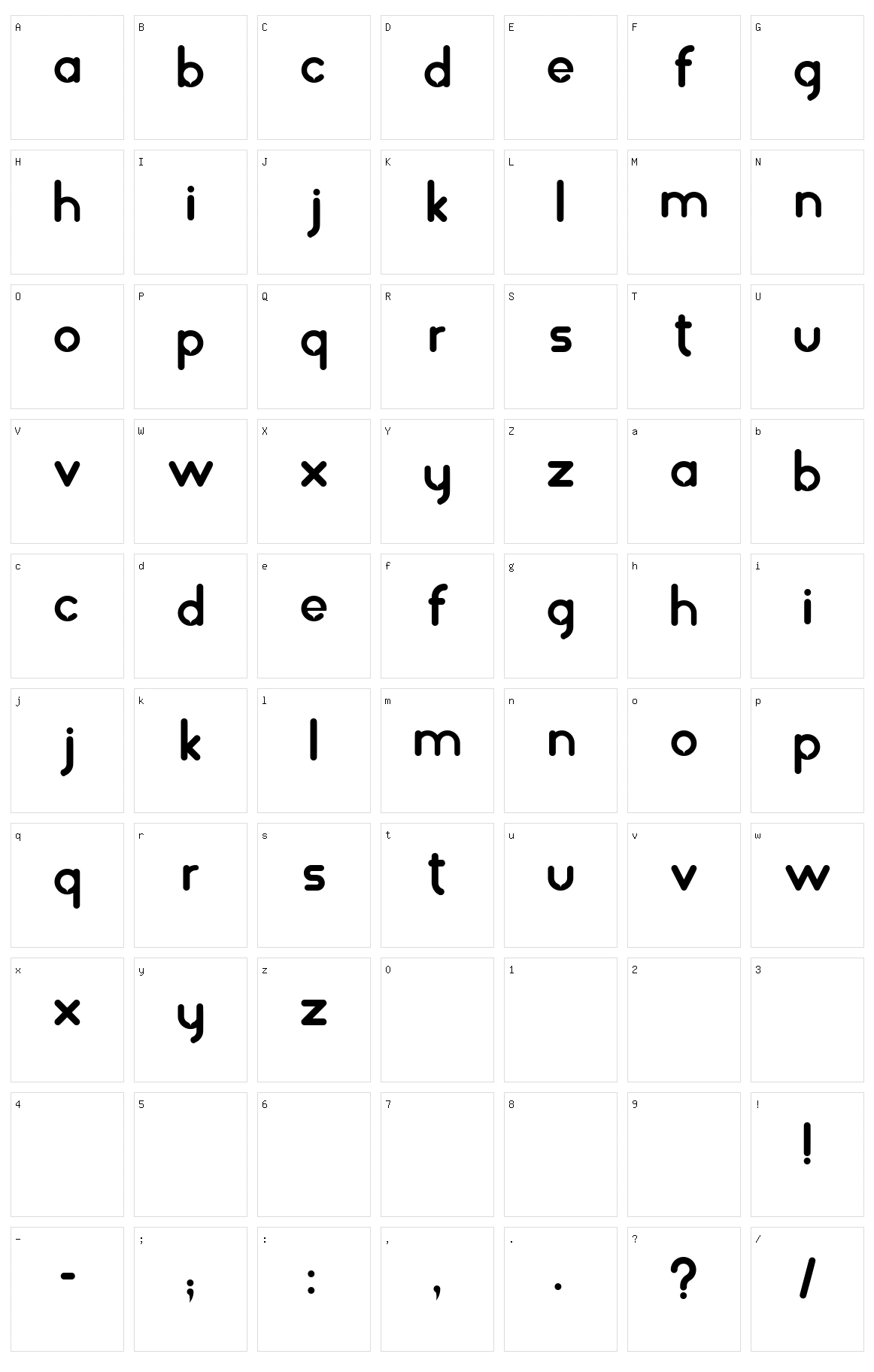
The free font Balonez Fantasia is carefully designed by Thiago Calza, showcasing a thoughtful balance of creativity and usability and falls under the Groovy font style. When you download the ZIP file, it contains only 409.05 KB of font files, making it lightweight and quick to download. Please review the license details below to understand permitted usage and distribution rights. If license information is not available, we recommend using this font for personal projects only or contacting the author directly for commercial usage permissions.